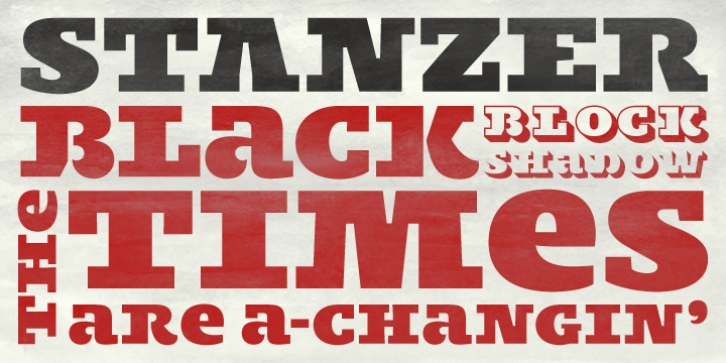
Stanzer is a display slab font family. This typeface has three styles and was published by FaceType.
The Black, the Block and the Shadow: Stanley Slab is an interpretation of wood type combined with the idea of modern stencils. Instead of cutting every letter, we are presenting an example of how a modern stencil typeface could look like. The conclusion is that almost every letter works without cutting it.
Stanley is a Unicase Slab Serif typeface, available in three OpenType weights: Black, Block and Shadow.